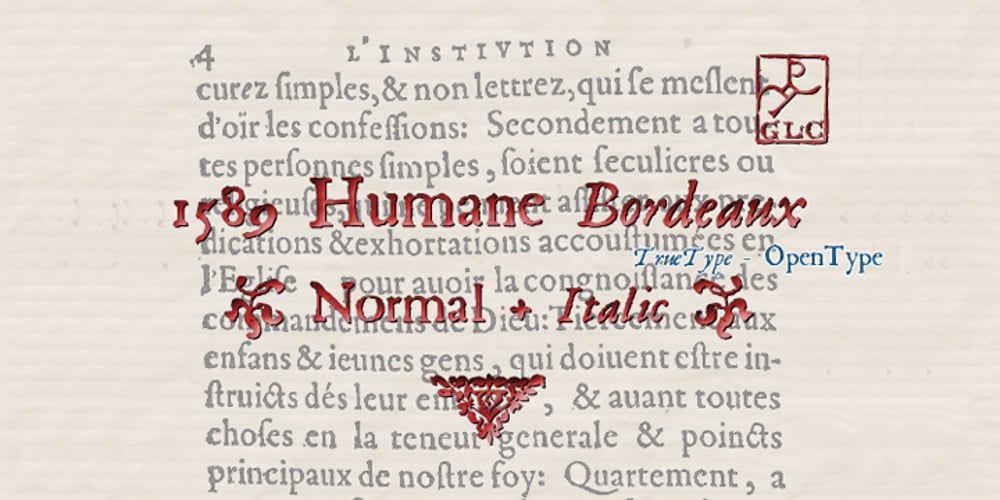
1589 Humane Bordeaux Font Family was designed by published by GLC. 1589 Humane Bordeaux contains 2 styles and family package options. This family was created inspired from the Garamond patern set of fonts used by S. Millanges “imprimeur ordinaire du Roy”, in Bordeaux, circa 1580-1590. Especially for reprint L’instruction des curés (Instructions to parish priests), from Jean Gerson. The set contains two styles, Normal and Italic, the second one with a lot of caps and ligatures variants. The initials, except a few decorated letters (six in total) where only large caps, covering no more than three lines. Added are a few fleurons. It can be used as variously as web-site titles, posters and flyers design, publishing texts looking like ancient ones, or greeting cards, all various sorts of presentations, as a very elegant and legible font… This font supports strong enlargements as easily as small size (legible from 6 points when printed) remaining very smart and fine. Its original cap height is about five millimeters. Decorated letters like 1512 Initials, 1550 Arabesques, 1565 Venetian, can be used with this family without anachronism.